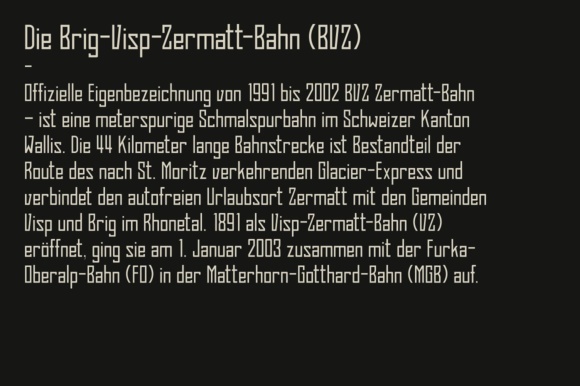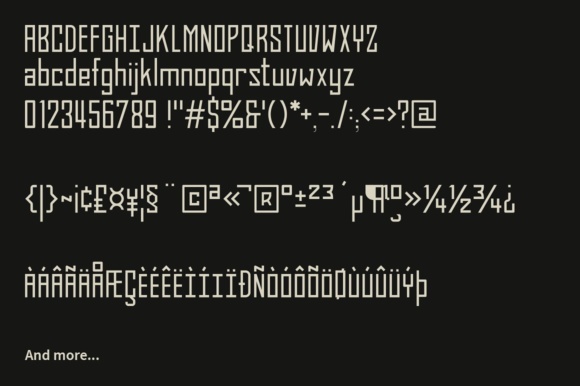
Timeless Railway Sign Elegance with Bahn Pro Thin Font
Have you ever stumbled upon an old photograph of a vintage train station and been instantly captivated by the nostalgic charm of its signage? For many designers, that’s the moment when creativity strikes, and the wheels start turning. Perhaps it’s the elegant curves, the worn lettering, or the subtle imperfections that evoke a sense of bygone eras. Whatever it is, it’s that exact feeling that the Bahn Pro Thin Font aims to capture.
Designed to evoke the spirit of old Austrian Bahn signs, this sleek and tall display font is perfect for designers looking to add a touch of retro sophistication to their projects. Whether you’re working on a branding campaign, a magazine layout, or a website design, the Bahn Pro Thin Font is an invaluable addition to your toolkit.
Bahn Pro Thin Font Key Features
- Unique Characteristics: Geometric sans-serif design, optimized for digital use, and highly legible at small font sizes
Bahn Pro Thin Font Review
I’ve had the chance to work with Bahn Pro Thin Font, and I must say it’s a unique and versatile font. ✨ Its sleek, modern design makes it perfect for a variety of projects, from digital interfaces to print materials. The font is highly legible, even at small sizes, which is a must for any successful font.
One of the standout features of Bahn Pro Thin is its wide range of weights and styles. ✨ You can choose from Thin, Light, Regular, Medium, Bold, and Heavy, each with its own distinct character. This versatility makes it easy to find the perfect look for your project.
While Bahn Pro Thin is an excellent font, there are a few limitations to consider: ⚠️
- It may not be the best choice for complex, detailed text. The thin lines can make it difficult to read, especially in small sizes.
- The font may not be as versatile for non-Latin languages. While it supports many languages, it may not have the same level of support for languages that require more complex typography.
Overall, I’m impressed with Bahn Pro Thin Font. While it may have some limitations, its unique design and versatility make it a great choice for many projects. With the right use case, this font can add a touch of modern sophistication to any design.
The Bahn Pro Thin font is ideal for use in modern and minimalist designs, such as:
- Editorials and publications
- Infographics and data visualizations
For the most effective use of the Bahn Pro Thin font, pair it with a bold font to create contrast and visual interest.